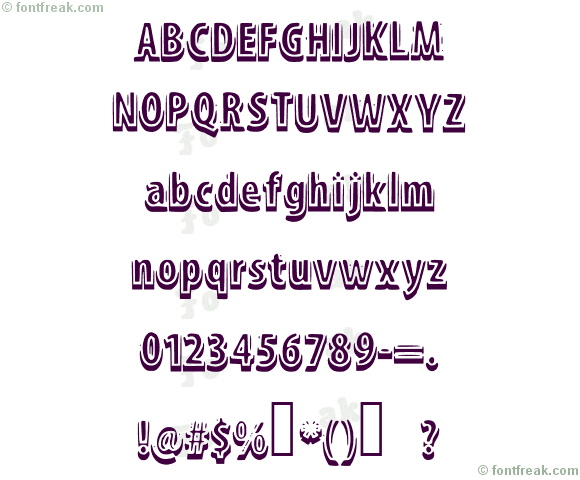
ShadowM
About ShadowM
ShadowM, created by Leonard Posavec and available for free download, is a captivating display font that draws attention with its unique design. This font stands out in the decorative category, characterized by its playful and whimsical nature. The visual appeal of ShadowM lies in its bold stroke weight, creating a strong presence that commands attention in any context. The font features a moderate contrast that adds depth, while the spacing between characters ensures clarity and legibility, making it suitable for various applications.
The ShadowM font is perfect for a wide range of creative projects. It shines in wedding invitations, where its charming style can elevate the overall aesthetic, adding a personal touch. Additionally, it works wonderfully for movie posters, giving titles a dramatic flair that enhances the visual narrative. Restaurant menus can benefit from ShadowM's engaging look, inviting diners to explore the offerings with a sense of excitement. Furthermore, small business owners can leverage this font for branding materials, making logos and promotional content more memorable. Content creators can also utilize ShadowM in social media graphics, ensuring their posts stand out in crowded feeds.
Targeting graphic designers, small business owners, and content creators, ShadowM offers versatility and creativity. Its distinct style allows users to convey personality and flair in their designs, attracting potential customers and audiences alike.
What sets ShadowM apart is its ability to blend creativity with functionality. The font's playful yet bold characteristics make it a delightful choice for anyone looking to infuse their projects with a unique touch. With its free availability, the ShadowM font free download is an excellent opportunity for designers and creators to enhance their work while making a lasting impression.